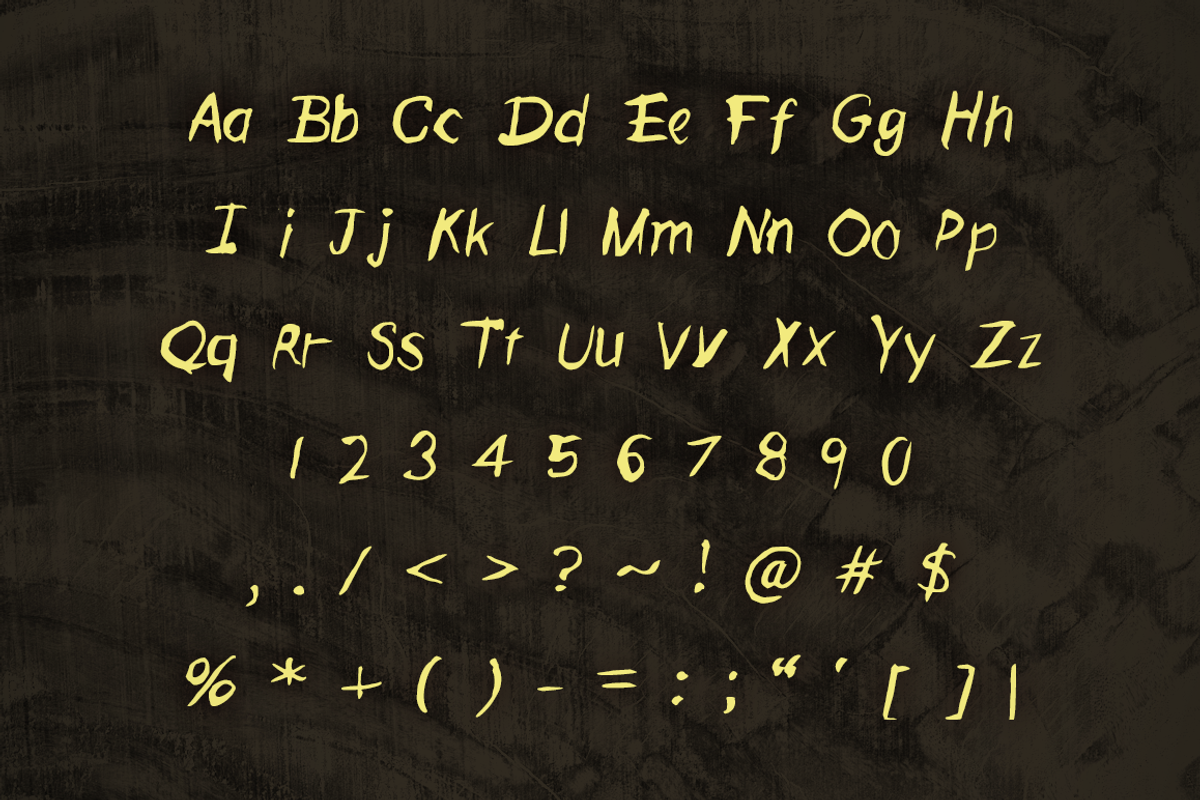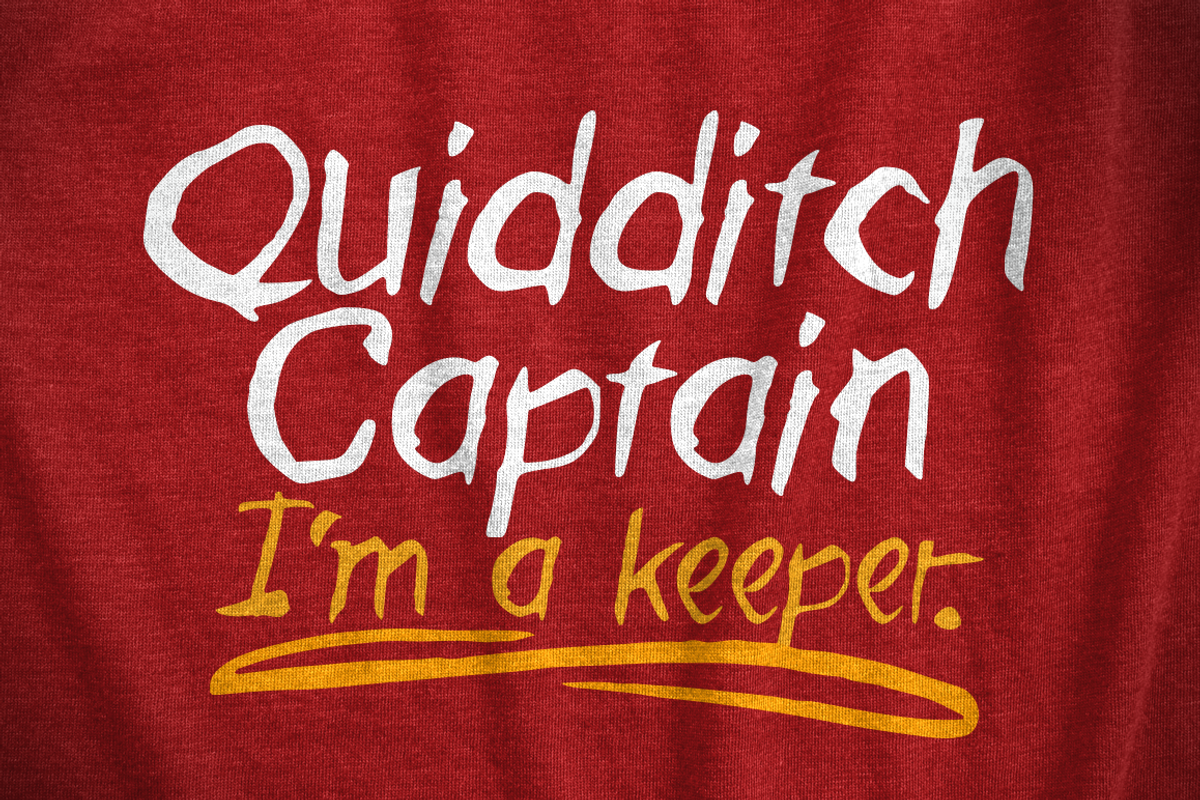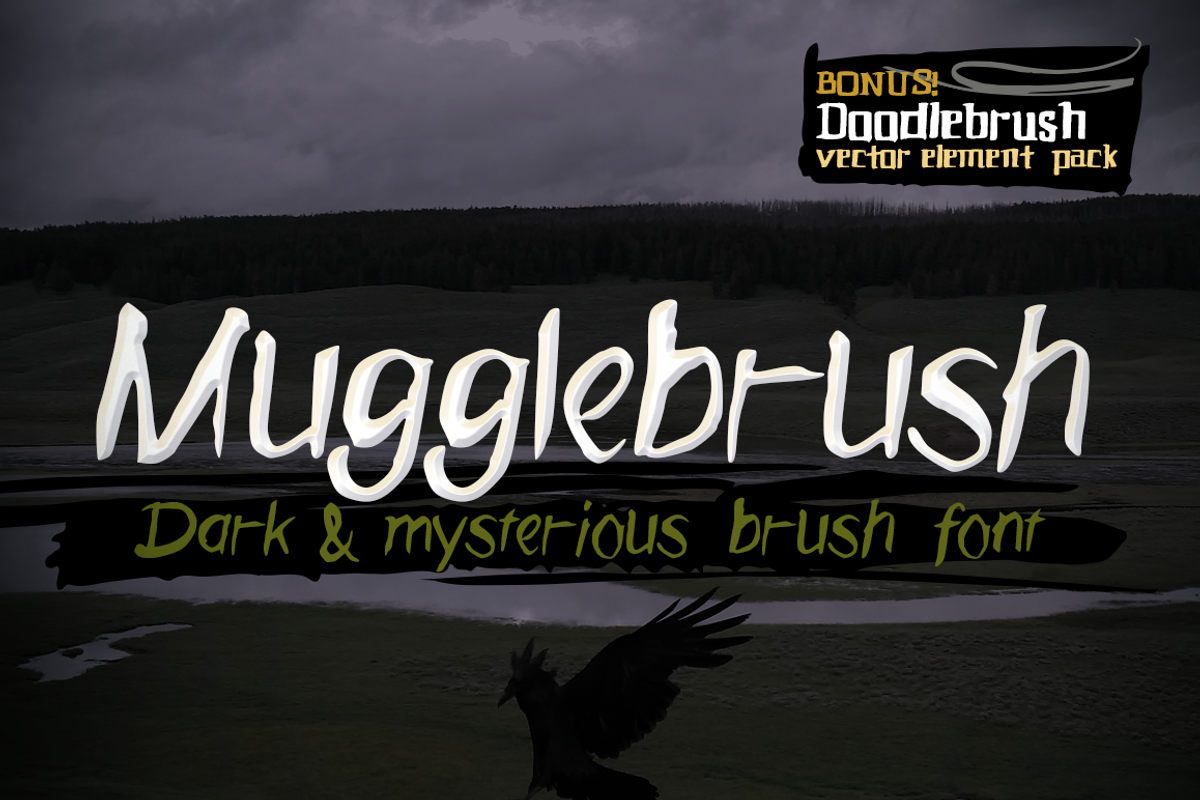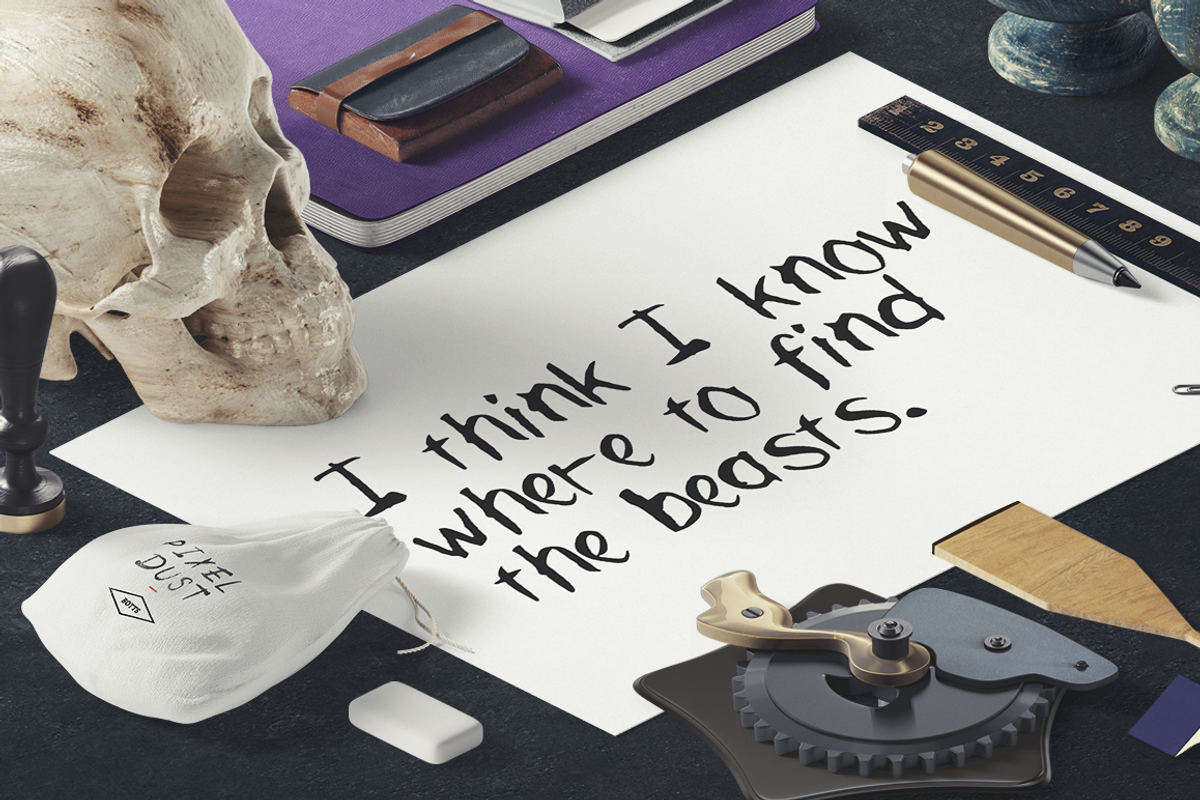
Mugglebrush hand-brushed font
Mugglebrush hand-brushed font by NorthCoastCreative is a font selected for branding, posters, packaging, typography.
Why Mugglebrush hand-brushed font is worth a look
Mugglebrush hand-brushed font by NorthCoastCreative fits naturally into Branding, posters, packaging, typography.